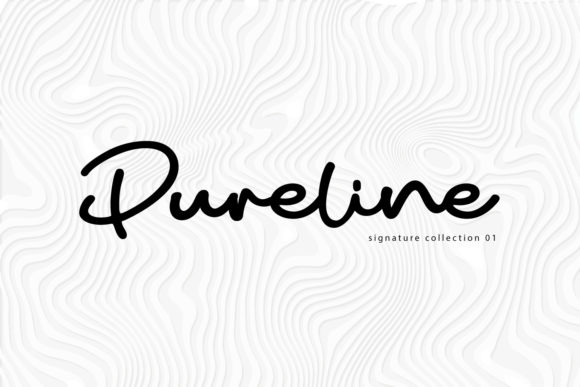
Introducing Pureline Font: The Exquisite Script Font for Your Typed Signature
Unleash the elegance and sophistication of Pureline, the modern signature font designed to captivate and inspire. Crafted with meticulous attention to detail, Pureline exudes a unique charm that will add a touch of personality to your digital creations.
With its graceful curves and flowing lines, Pureline effortlessly captures the essence of a handwritten signature, infusing your designs with a sense of authenticity and individuality. Let Pureline's distinctive style elevate your projects, whether it's personal notes, branding materials, wedding invitations, or social media posts.
Immerse yourself in Pureline's versatility and let your creativity flourish. Experiment with different weights and styles to achieve the perfect look for your design. From delicate and airy to bold and impactful, Pureline adapts seamlessly to your vision, ensuring that your message leaves a lasting impression.
Step into a world of boundless possibilities with Pureline. Unleash your inner artist and explore the endless creative avenues that await you. Let Pureline be your guiding light, enhancing your designs with its timeless beauty and captivating charm.